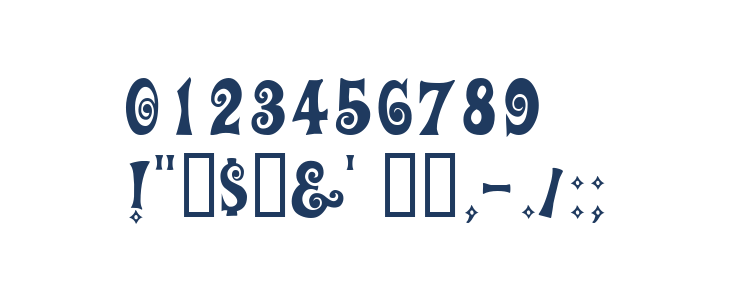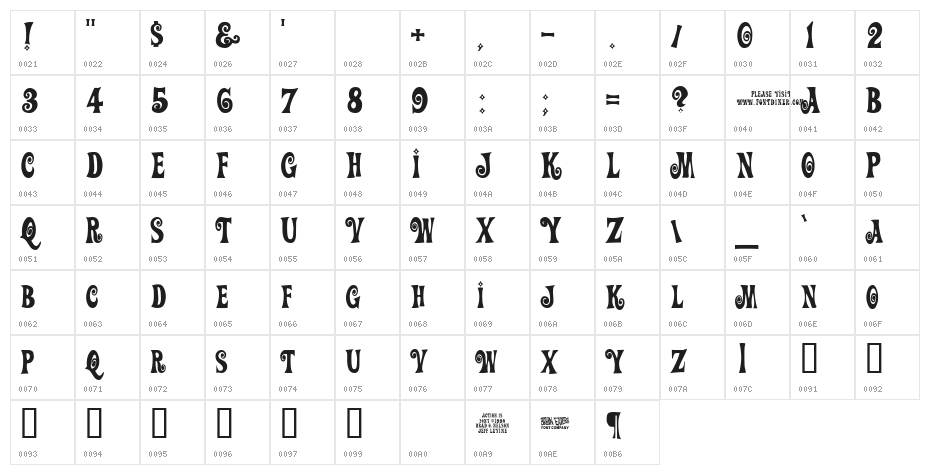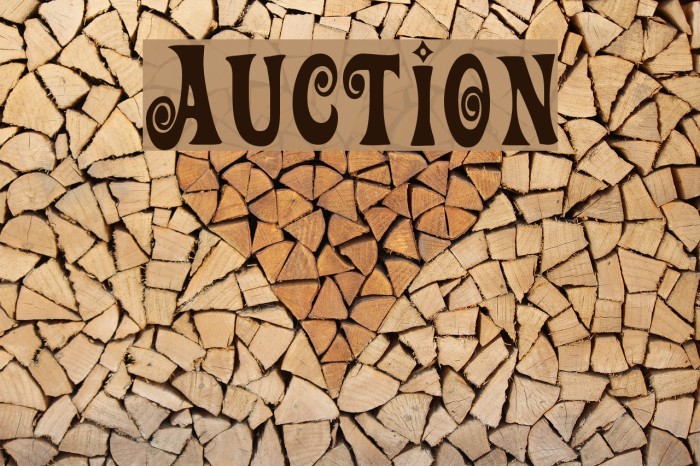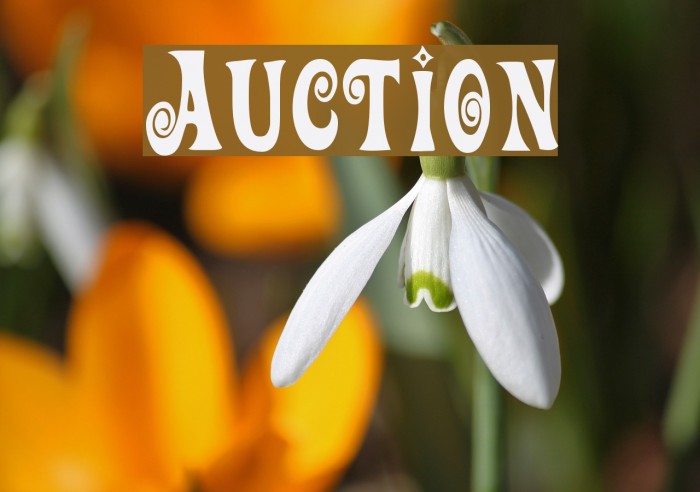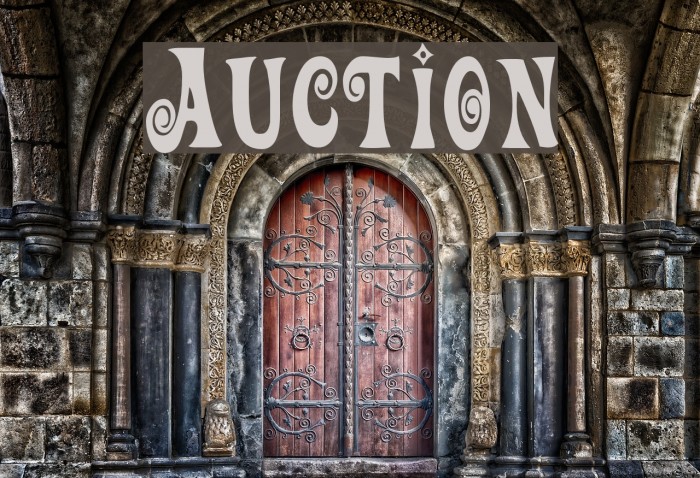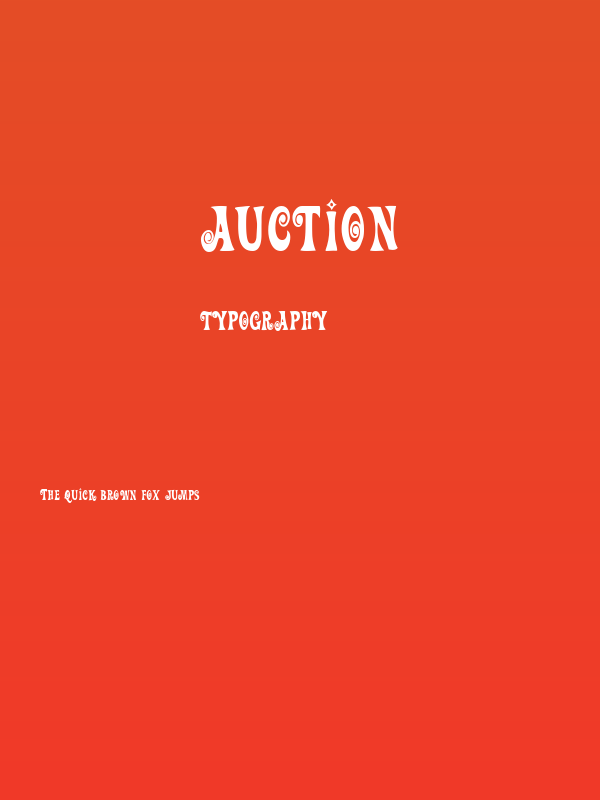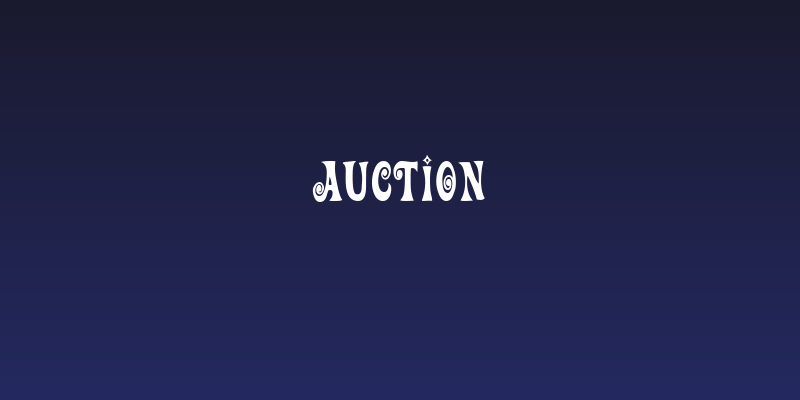
Auction Font
| Proiecte propuse | Ideal for creative projects such as posters, invitations, logos, and branding materials that seek to convey a fun and lively atmosphere. |